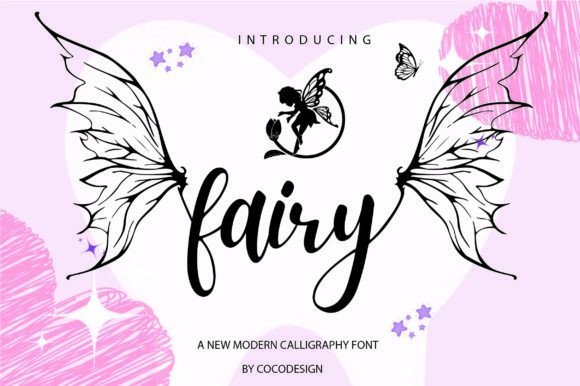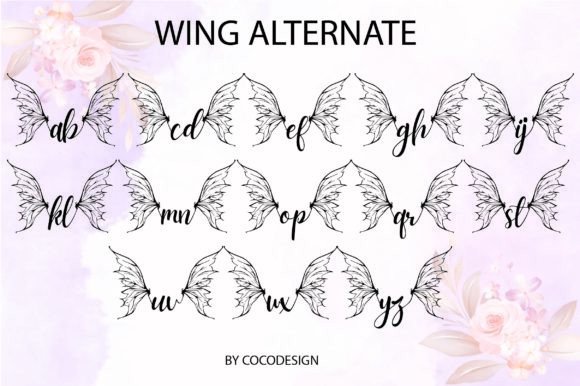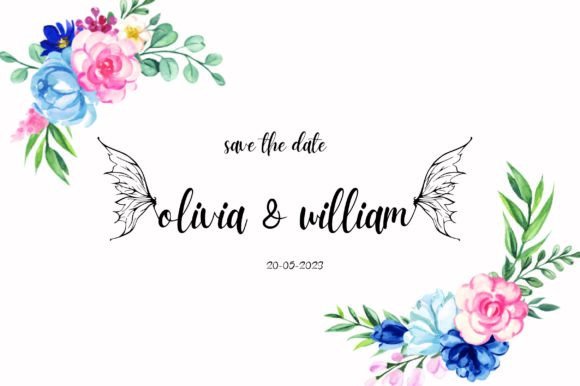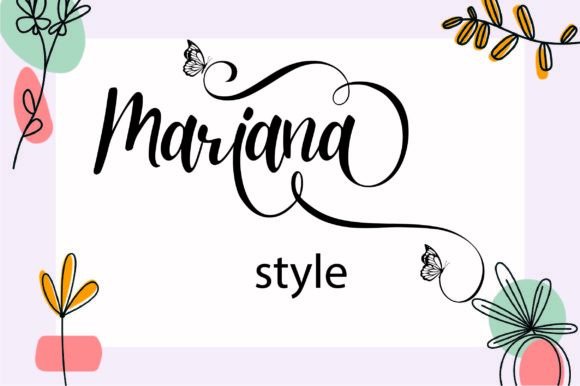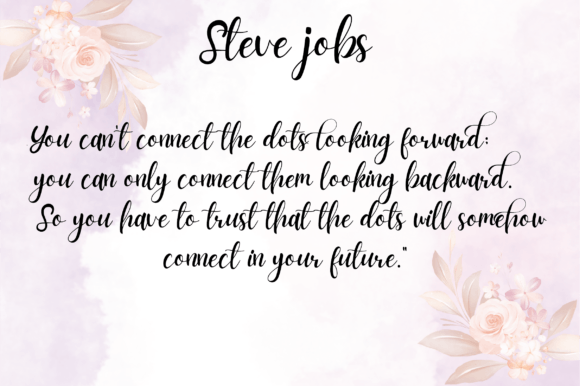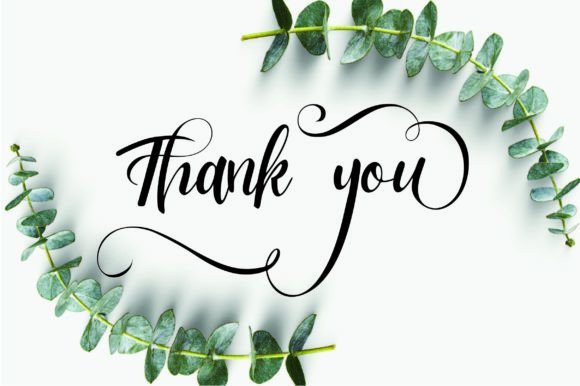
The Magic of Handwritten Scripts: Introducing Fairy Font
Have you ever sat down with a blank page and a pen, only to let your imagination run wild as you scribble down ideas and inspiration? That’s the magic of handwritten scripts – a world where creativity knows no bounds and the possibilities are endless. And now, designers can tap into this same magic with the Fairy Font, a stunning and versatile handwritten script font that’s sure to captivate and inspire.
This beautifully crafted font is perfect for designers looking to add a touch of whimsy and personality to their projects. With its well-balanced letters and PUA encoding, the Fairy Font is a masterclass in style and functionality. Whether you’re working on a branding project, a wedding invitation, or a social media campaign, this font is sure to bring a touch of fairy dust to your designs.
Fairy Font Key Features
- Font Style: Fairy Font is a whimsical, cursive script font with intricate details and elegant flair.
- Character Set: Includes a comprehensive set of characters, including uppercase and lowercase letters, numbers, and punctuation marks.
- Size and Resolution: Designed to be scalable, with a recommended resolution of 300 DPI for optimal legibility and aesthetics.
- Unique Characteristics: Features a unique blend of fantasy and elegance, making it suitable for various design applications, from invitations to children’s books.
Fairy Font Review
Overall, I’m quite enchanted by the Fairy Font. Here are the things that work well:
- ✨ It has a whimsical touch that’s perfect for fantasy or children’s book-related projects.
- ✨ The font is highly customizable, allowing you to adjust the colors, sizes, and even add custom effects.
- ✨ The characters are well-designed and look great even at smaller sizes.
- ⚠️ The font may not be suitable for professional or formal projects due to its playful nature.
- ⚠️ Some users may find the font’s complexity overwhelming, especially when it comes to customizing it.
Overall, I’d give the Fairy Font 4 out of 5 stars. While it’s not perfect, it’s a great choice for anyone looking to add a touch of magic to their design. Just be aware of its limitations and make sure it’s the right fit for your project.
Fairy Font is ideal for whimsical and magical designs, such as:
- Wedding invitations
- Party decorations
- Handmade crafts